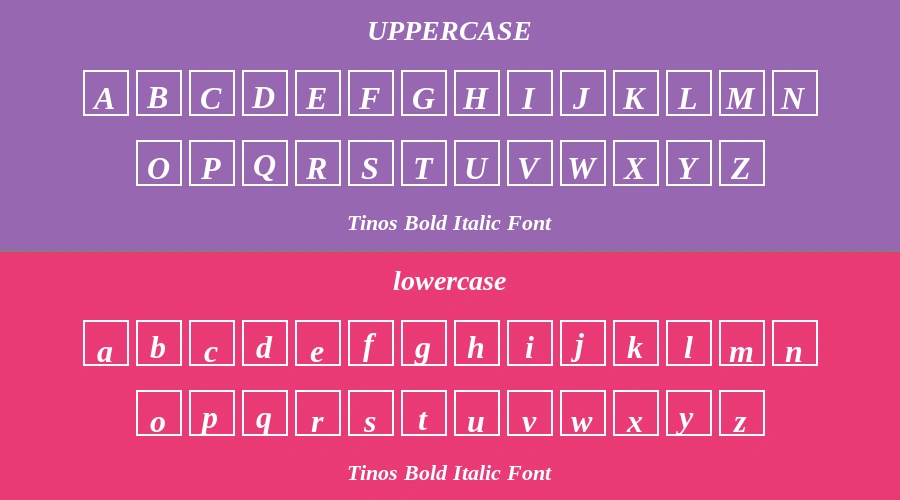
About Tinos Bold Italic Font
Designed with precision, Tinos Bold Italic Font merges flourishes with functional clarity in every character. This versatility makes it particularly effective for logo design, where precision and aesthetic excellence directly impact communication quality. Each letterform demonstrates meticulous craftsmanship.
Technical excellence shines through elements like straight stems and arrow sets, enhancing typographic versatility. In technical diagrams settings, Tinos Bold Italic Font proves its worth through superior performance. The thoughtful execution of aperture size and artistic merit ensures professional results.